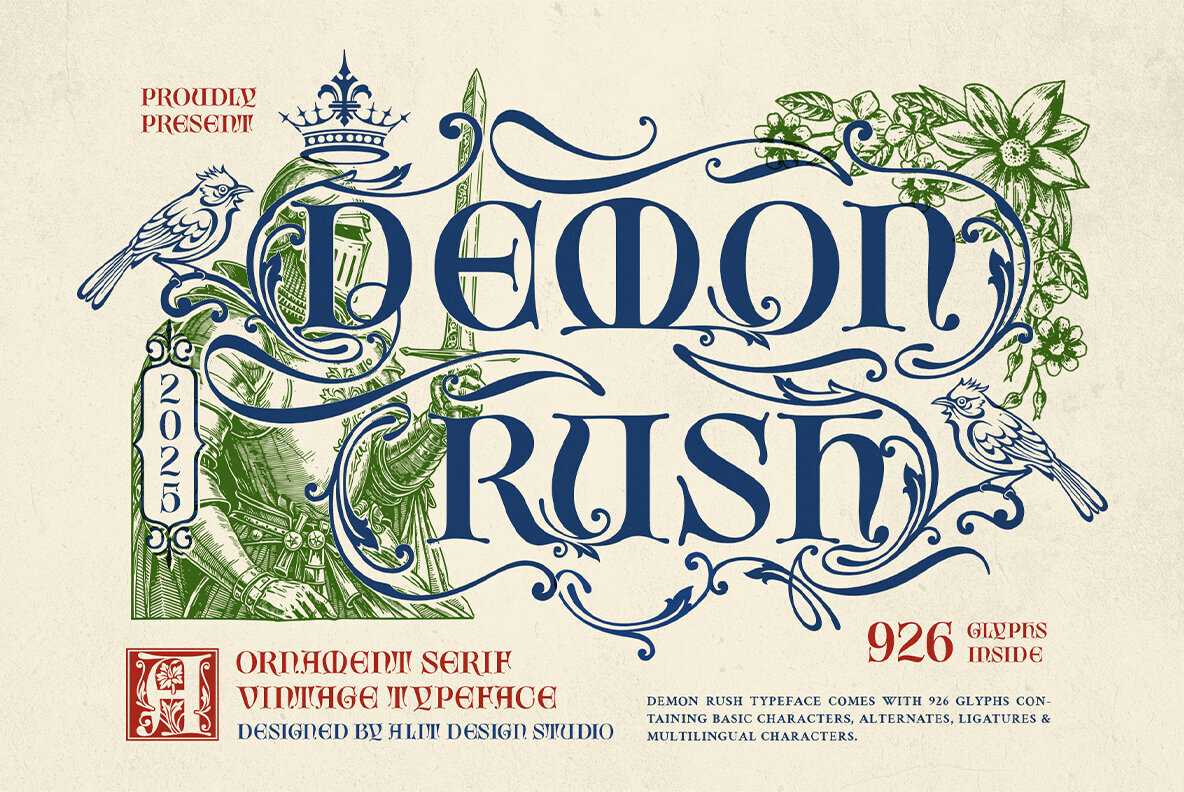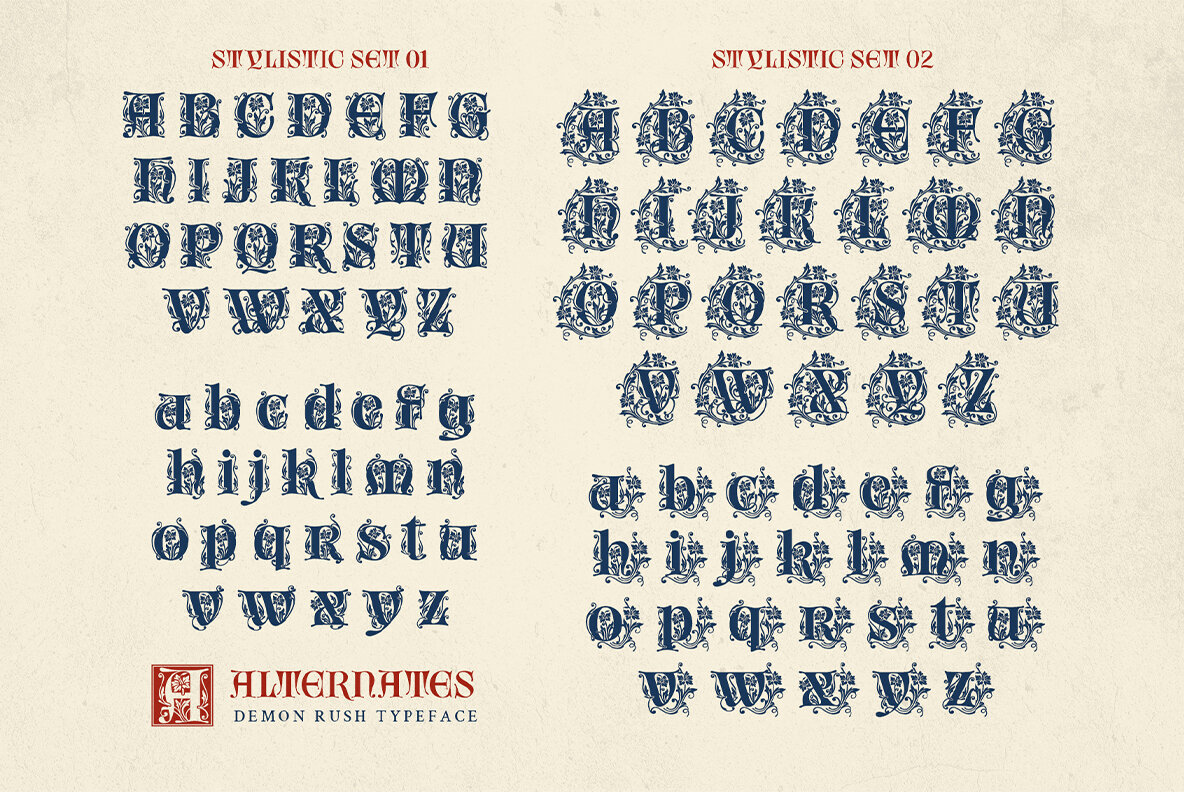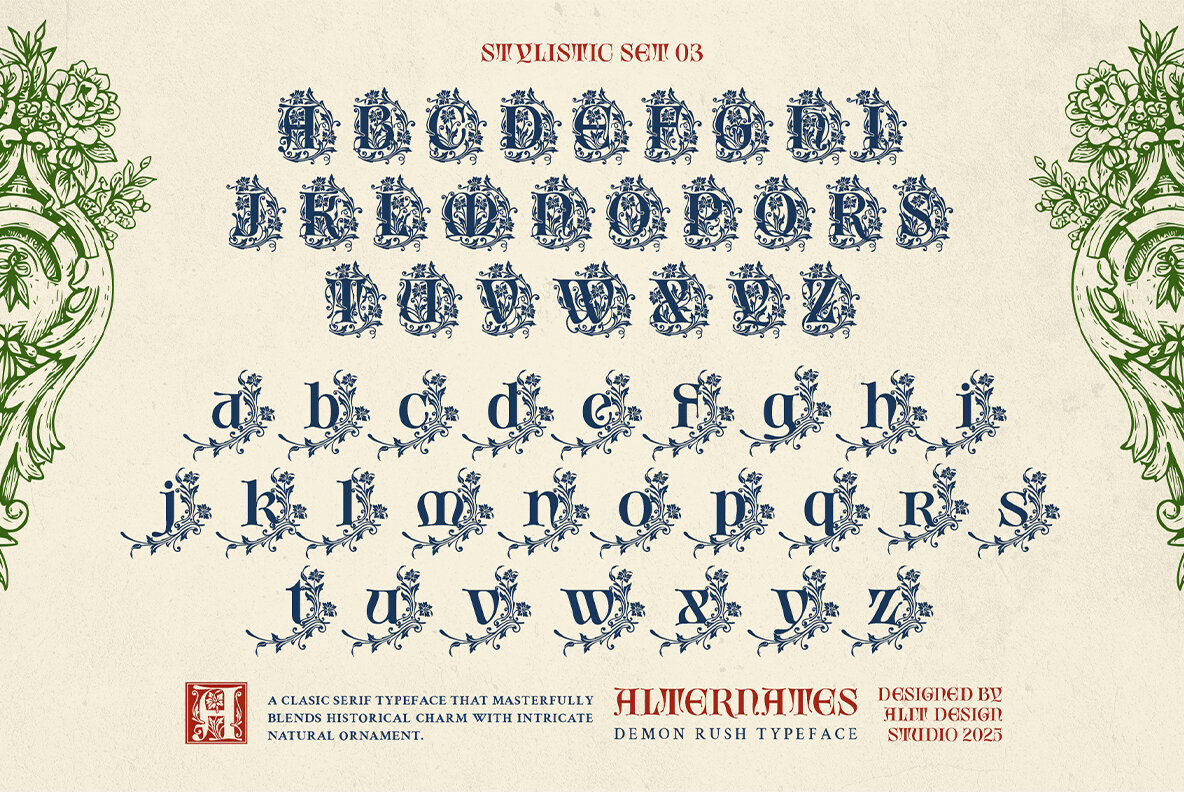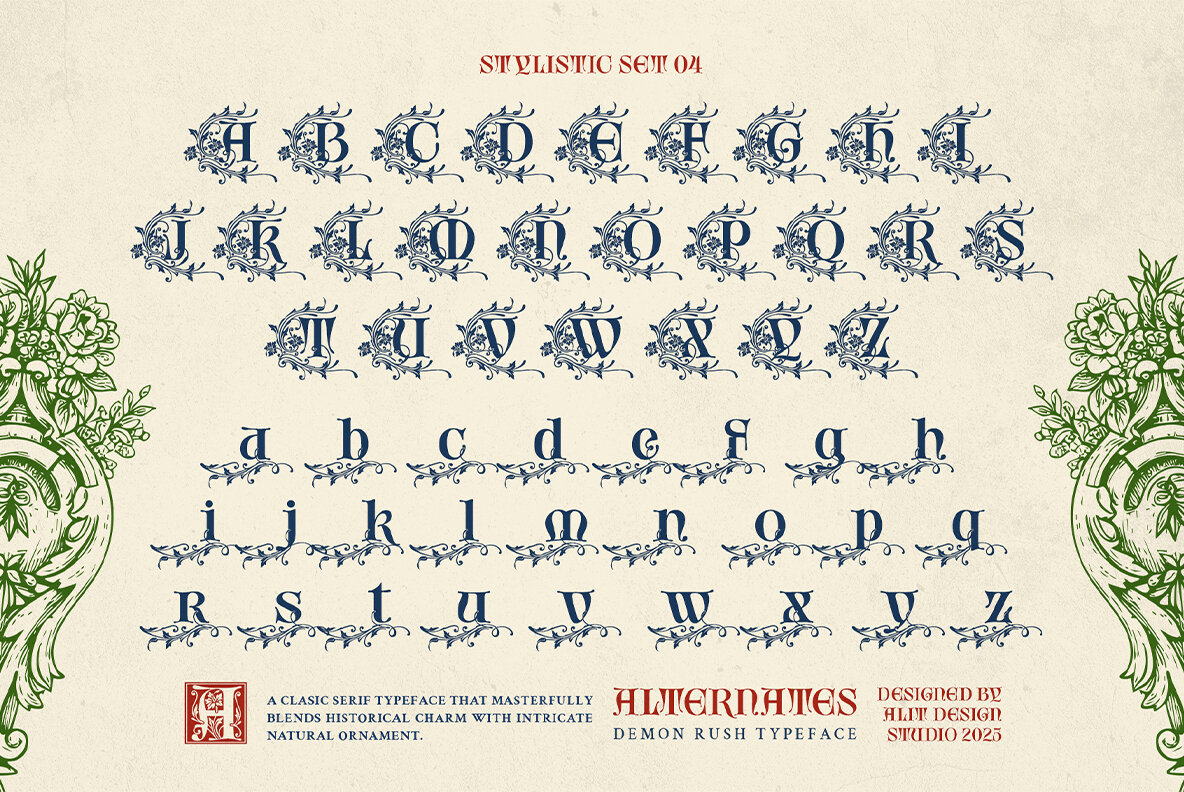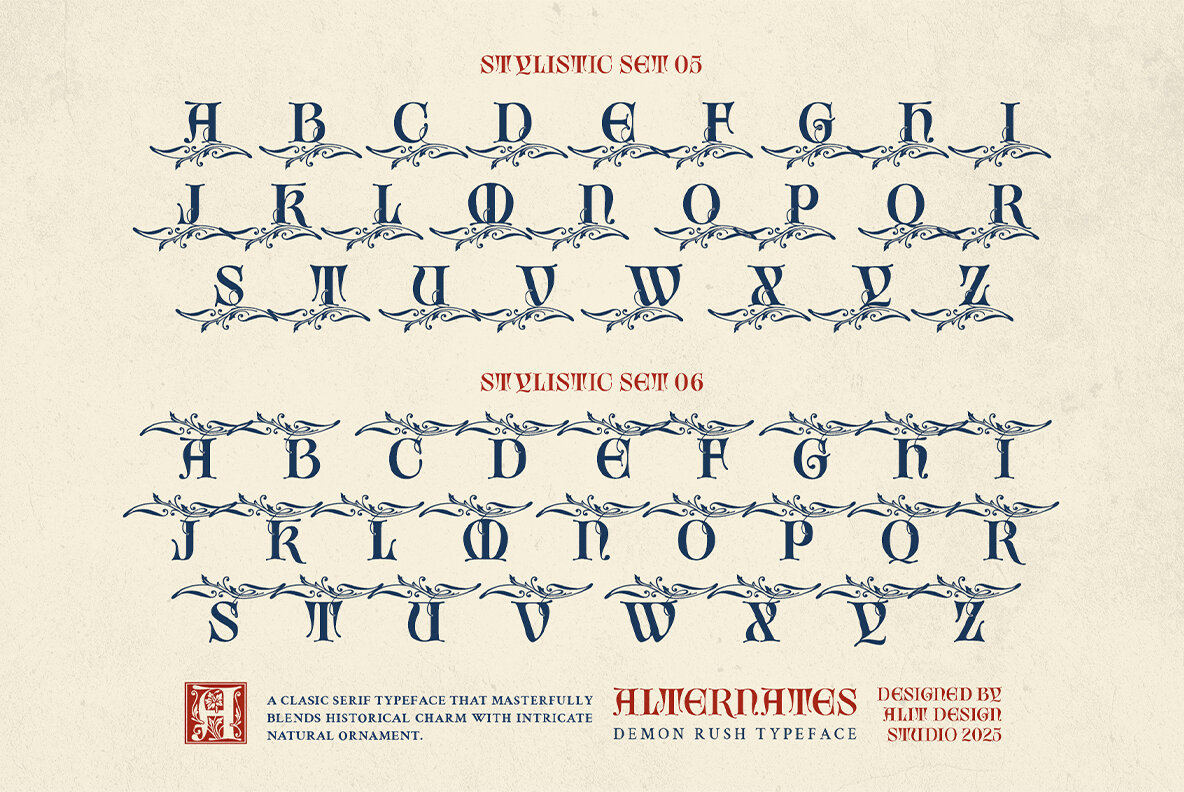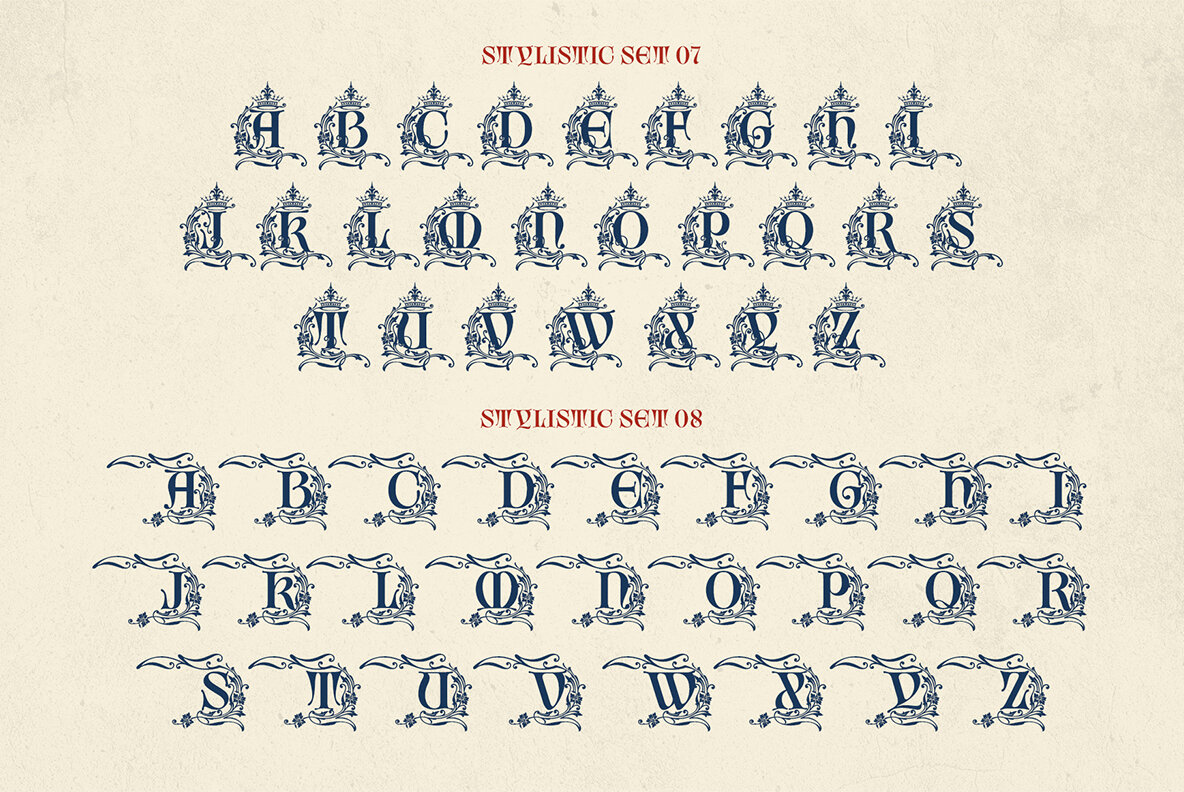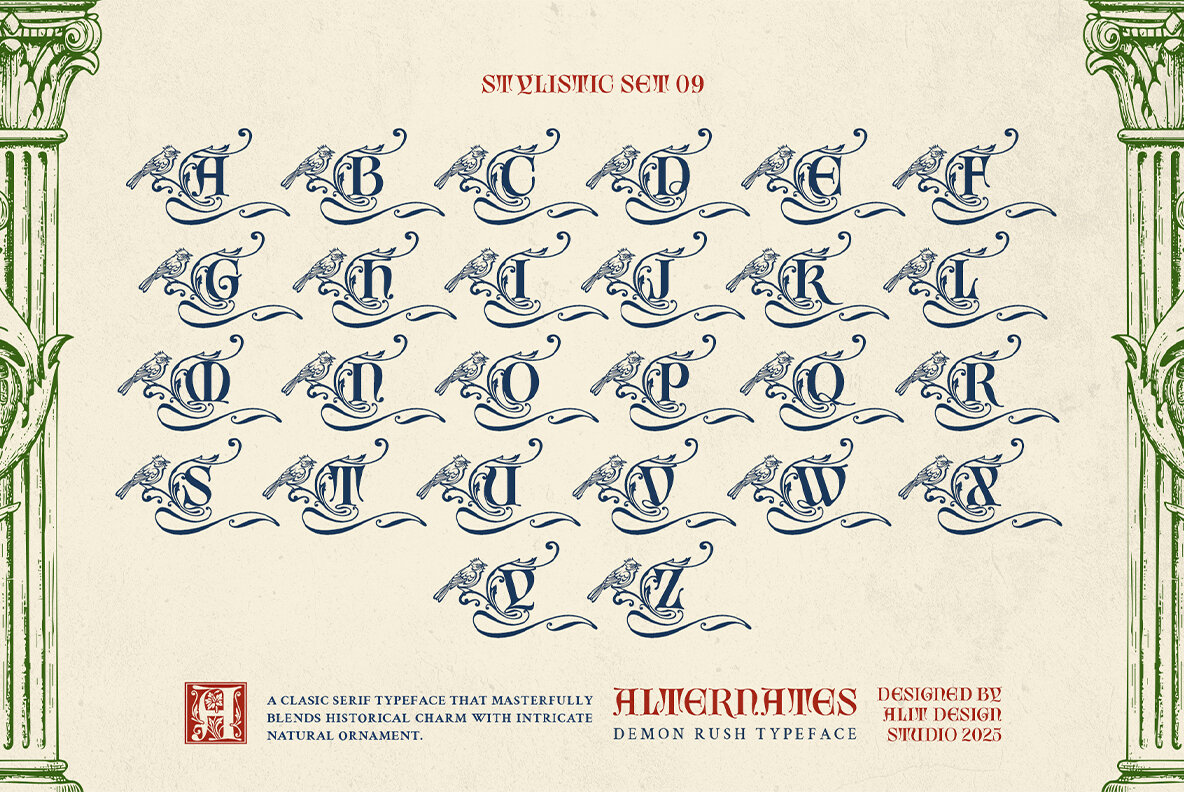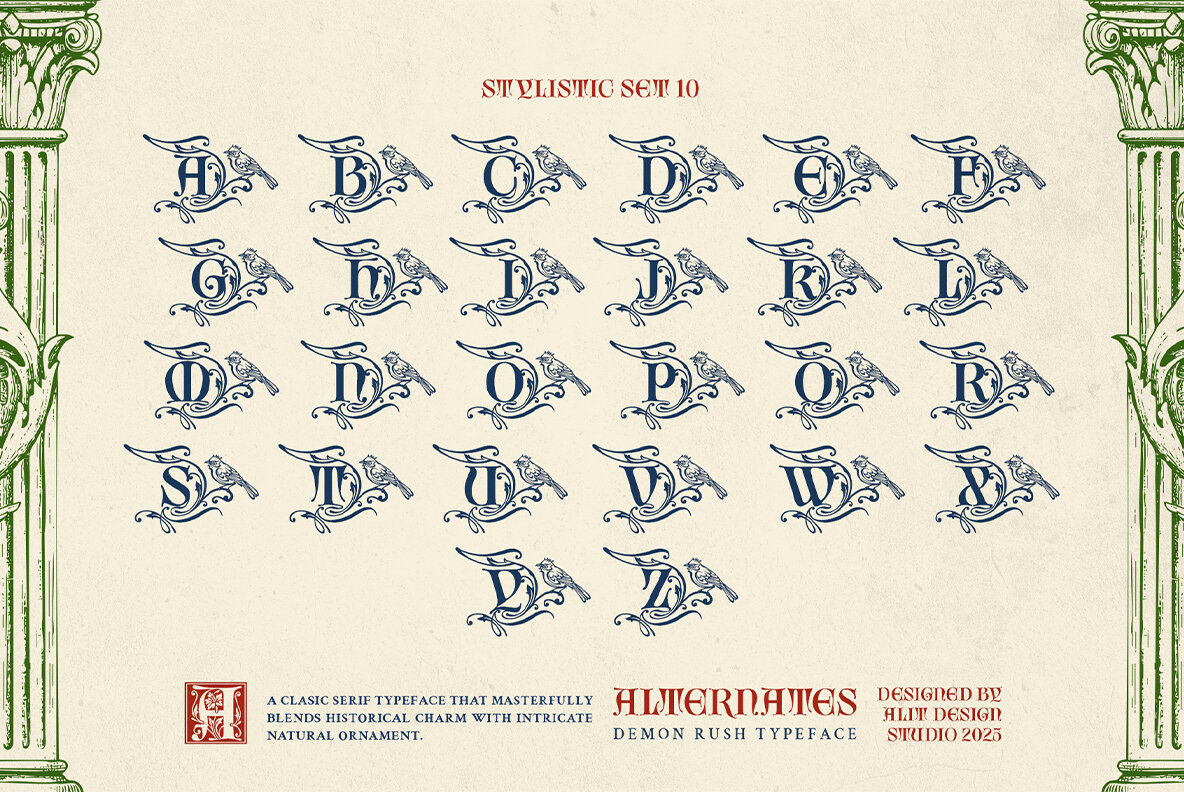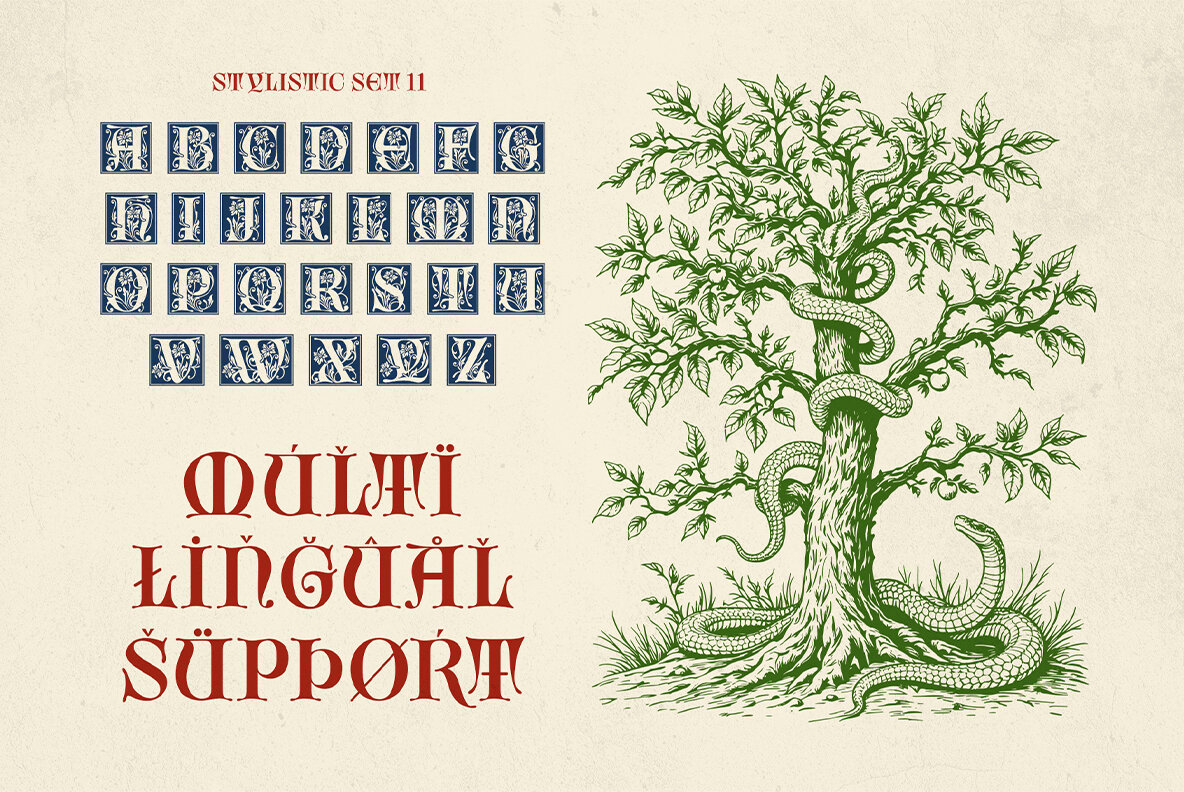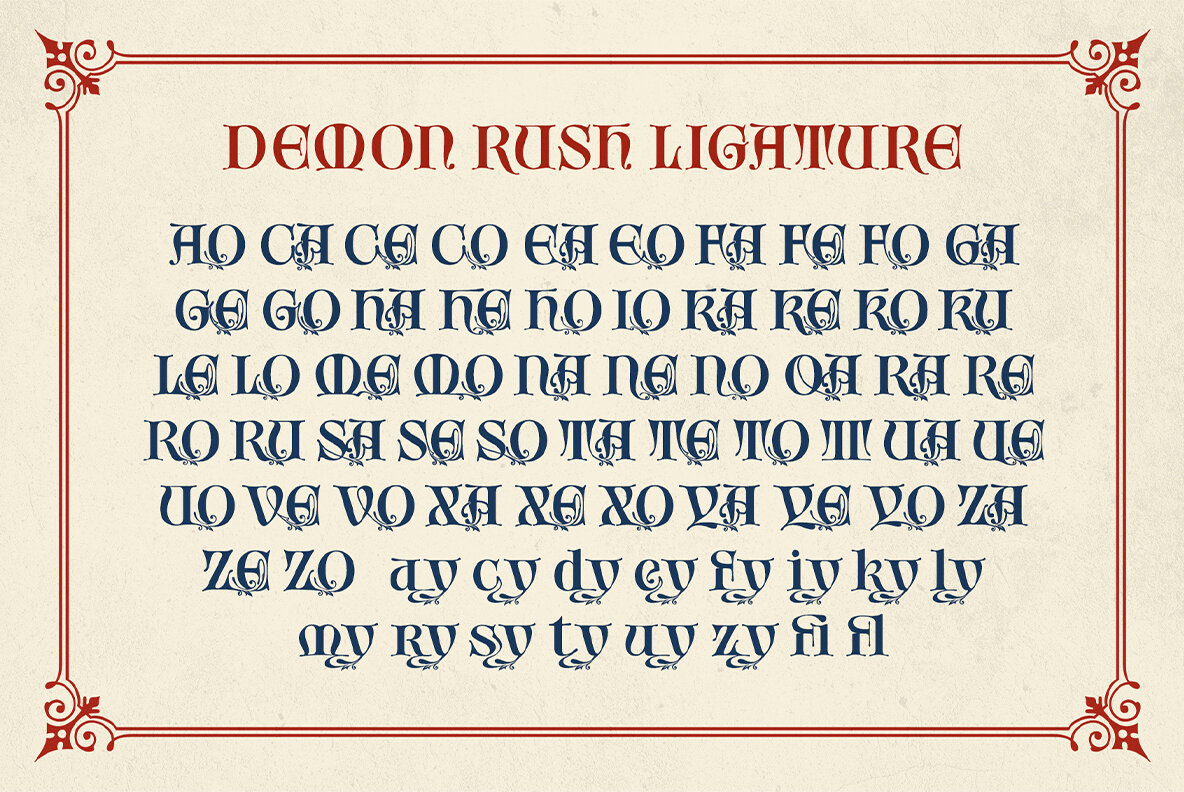
Demon Rush Font
Demon Rush Regular
Enter a realm of myth and legend with Demon Rush, a versatile vintage serif typeface. This typeface serves as a comprehensive design toolkit with its intricate ornamentation and historical gravitas. Its robust serif design combines strength and elegance, ensuring readability while conveying sophistication. Demon Rush isn't just a typeface; it's an opportunity to craft designs rich in narrative and timeless beauty.Demon Rush: Vintage Serif Typeface with Ornamental Flair